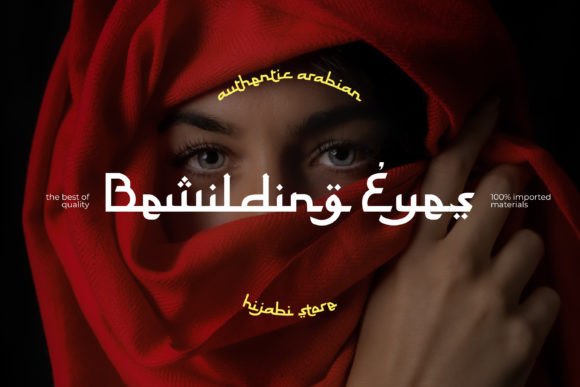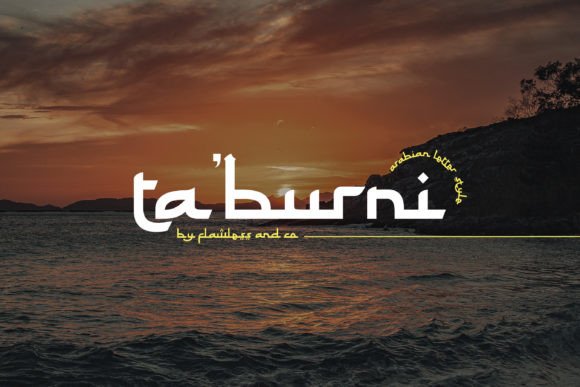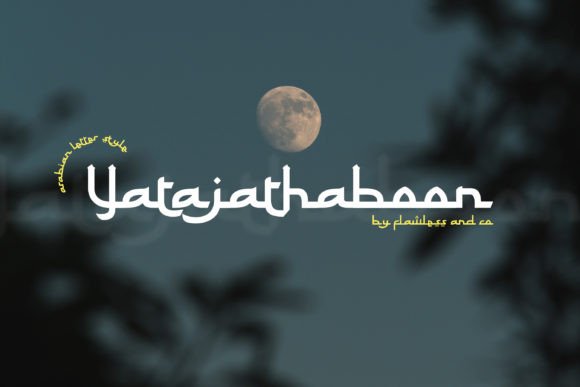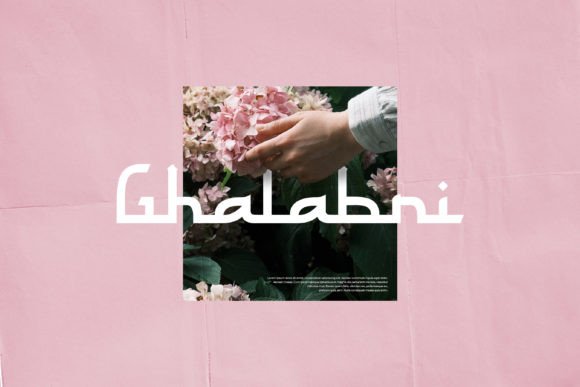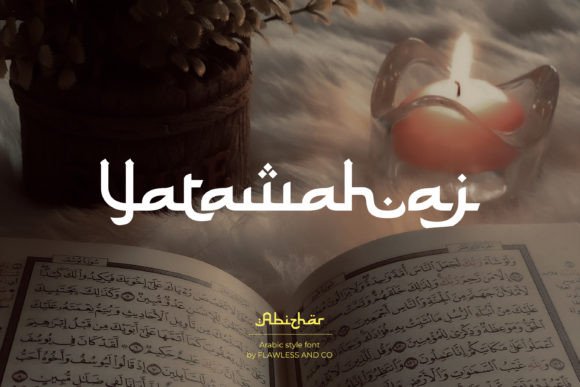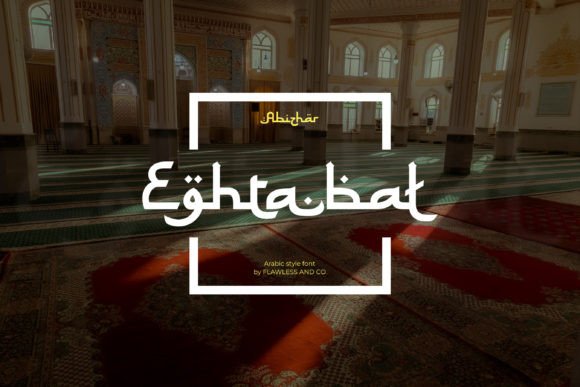
The Quest for the Perfect Ramadan Font: Discovering Abizhar
I’ll never forget the time I was working on a Ramadan-themed project for a client, and I just couldn’t find the right font to bring their vision to life. I scoured the internet, tried out countless fonts, but nothing seemed quite right. That was until I stumbled upon Abizhar, a beautifully crafted Ramadan Arabic font that exceeded my expectations in every way.
Abizhar Font: A Modern Take on Arabic Calligraphy
Abizhar is a stunning example of modern Arabic calligraphy, with elegant strokes and bold lines that make it perfect for designing Ramadan-related graphics. Whether you’re creating greeting cards, banners, or social media posts, this font is sure to make your project stand out from the crowd.
My Honest Review of Abizhar
- ✨ Elegant calligraphic strokes that add a touch of sophistication to any design
- ✅ Bold lines that make the font highly legible, even at smaller sizes
- 🌈 A unique style that’s perfect for creating eye-catching Ramadan-themed graphics
- 💻 A highly versatile font that’s suitable for a wide range of design projects
While Abizhar is an amazing font, there are a few things to keep in mind. For example, ⚠️ some of the more intricate glyphs can be a bit finicky to work with, especially if you’re new to using OpenType features. Additionally, 🤔 the font may not be the best choice for very long blocks of text, as it’s really designed to shine as a display font.
The Story Behind Abizhar
Abizhar was designed with the goal of creating a modern, elegant Arabic font that would be perfect for Ramadan-themed designs. The designer wanted to create a font that would be both beautiful and highly legible, with a unique style that would make it stand out from the crowd.
| Font Name | Abizhar Font |
| Author | Flawless And Co |
Q: What is Abizhar font?
A: Abizhar is a beautifully crafted Ramadan Arabic font that’s perfect for designing Ramadan-related graphics.
Q: Can I use Abizhar for non-Ramadan related designs?
A: While Abizhar was designed specifically for Ramadan-themed designs, it can be used for other projects as well. However, keep in mind that it may not be the best choice for very long blocks of text or designs that require a more formal tone.
Q: Is Abizhar easy to read?
A: Yes, Abizhar is highly legible, even at smaller sizes. However, some of the more intricate glyphs may require a bit more attention to detail to read correctly.